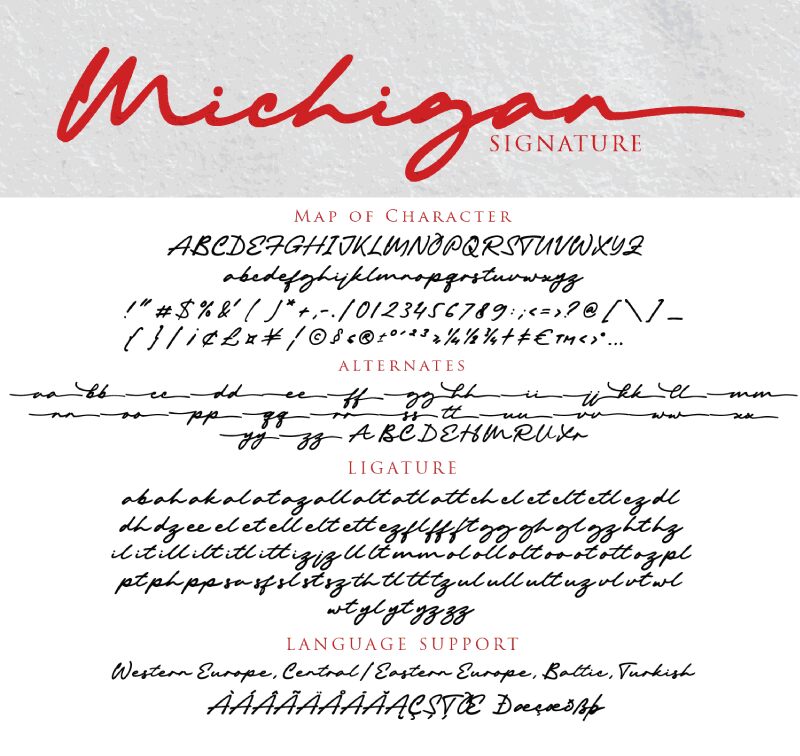
Michigan Signature Regular
Michigan Signature font by Cititype is a flowing handwritten font with an expanded width. Thanks to its modern signature style, the resulting outcome when used for typing is elegant and appealing in a liberal manner. When combined with ornaments and handwritten drawings, both digital and print designs have even more chances of looking spectacular as end results.
This free handwritten font is lovely on logotypes, jewelry branding, studios or shops signages, product packaging, labels, etc. This makes it great for home items like pottery and utensils, if not food labels for hand-baked foods made at home. Michigan Signature looks even better on wedding invitations where its elegance can be easily appreciated as the handwriting looks authentic enough to fool the human eye into thinking it’s been personally written down by someone!